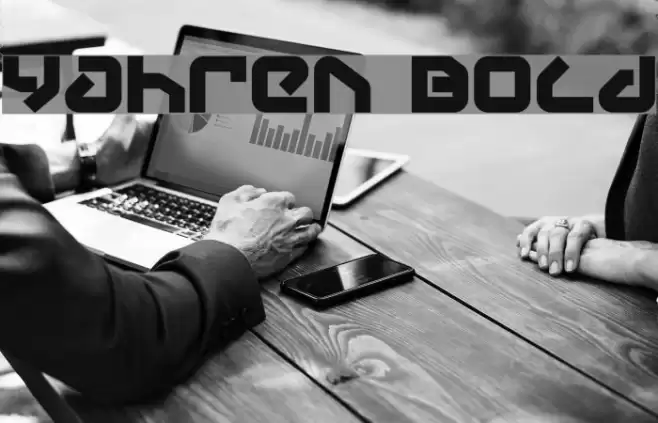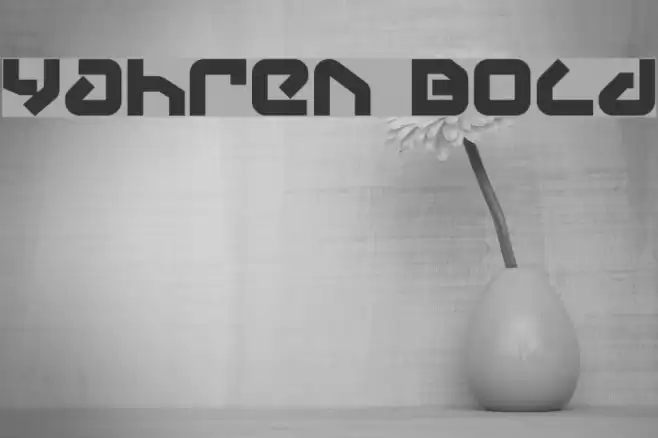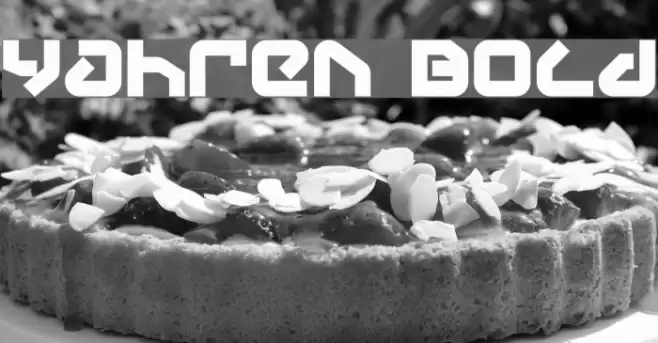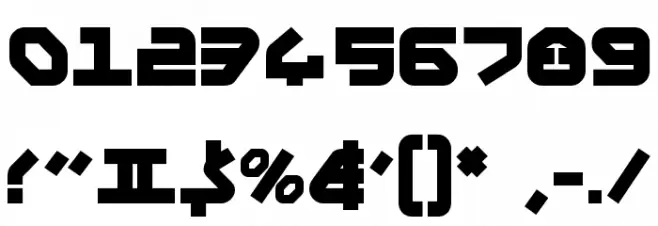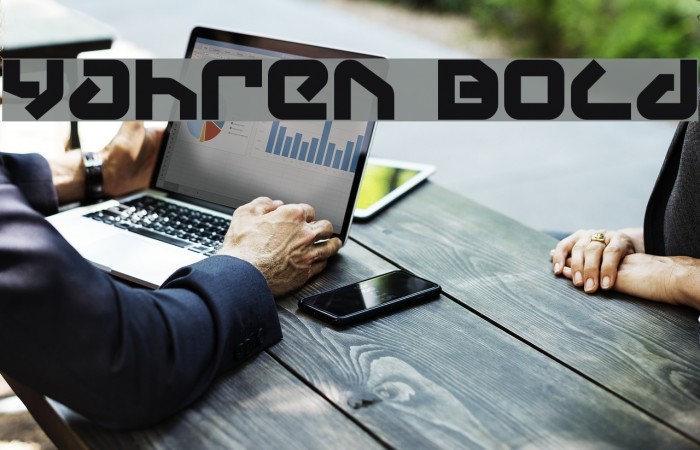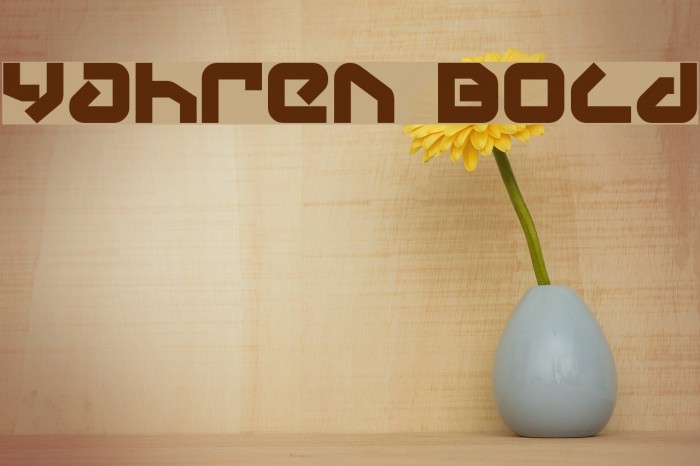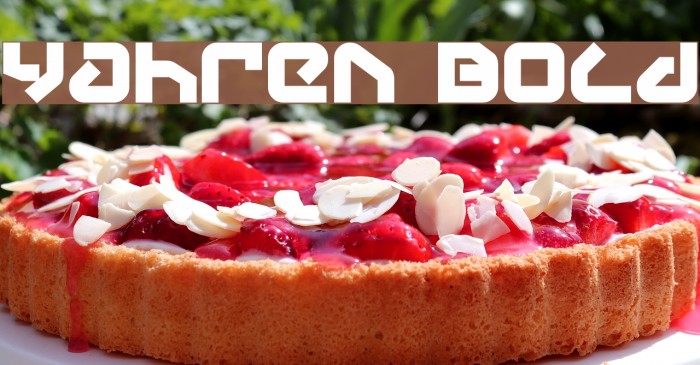
Yahren Bold Font
Yahren Bold Description
This font exhibits a bold, geometric style with a futuristic and angular design. Each character is crafted with sharp edges and a block-like appearance, giving it a distinct and modern look. The uppercase and lowercase letters maintain a consistent width, contributing to a uniform and cohesive appearance. The numerals and special characters follow the same design principles, ensuring a harmonious overall aesthetic. This font's unique style makes it suitable for projects that require a strong visual impact.
A bold, geometric font with a futuristic and angular design from Futuristic fonts.
- Proposed Projects: Ideal for sci-fi themed designs, video game titles, posters, and branding that requires a modern and bold statement.